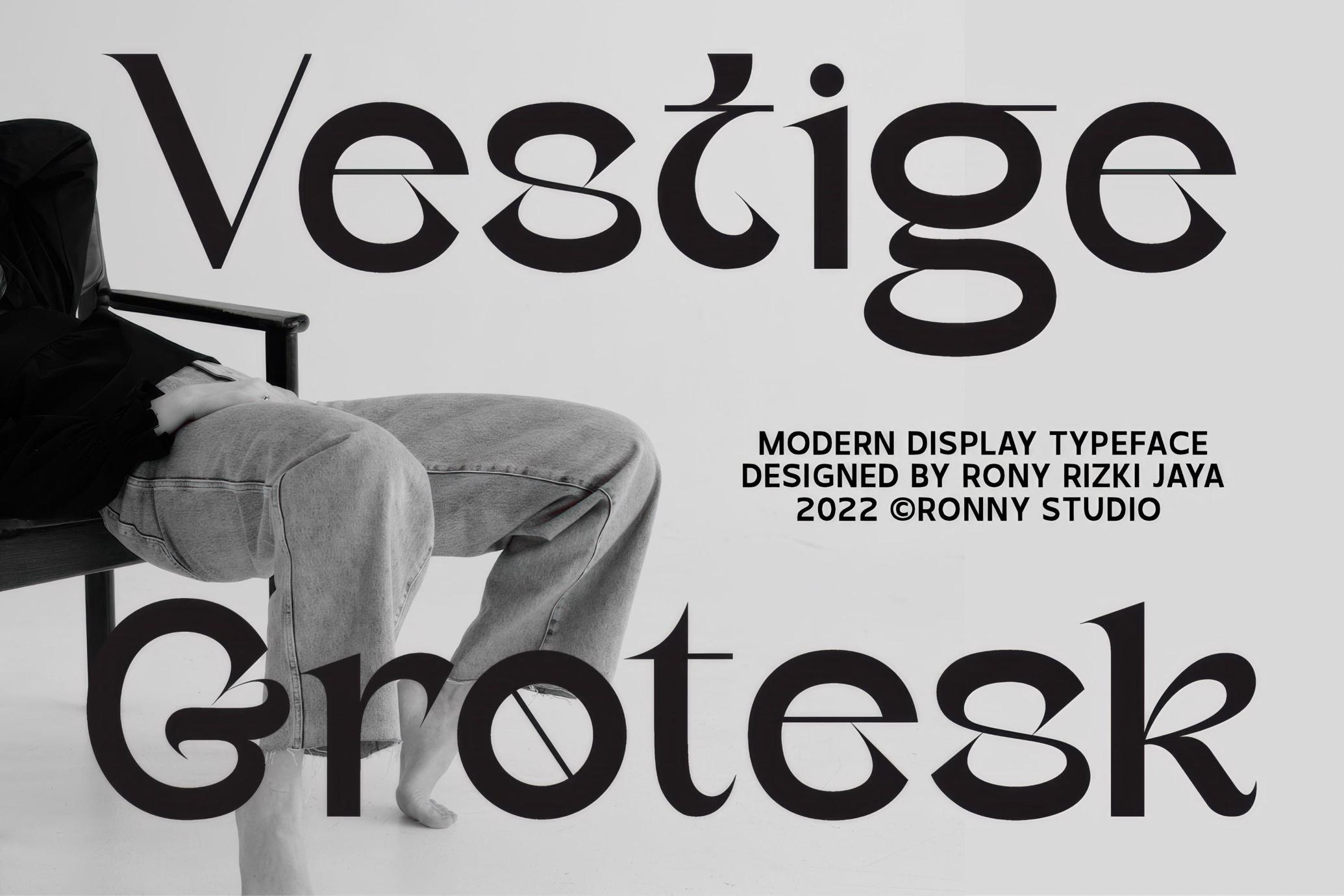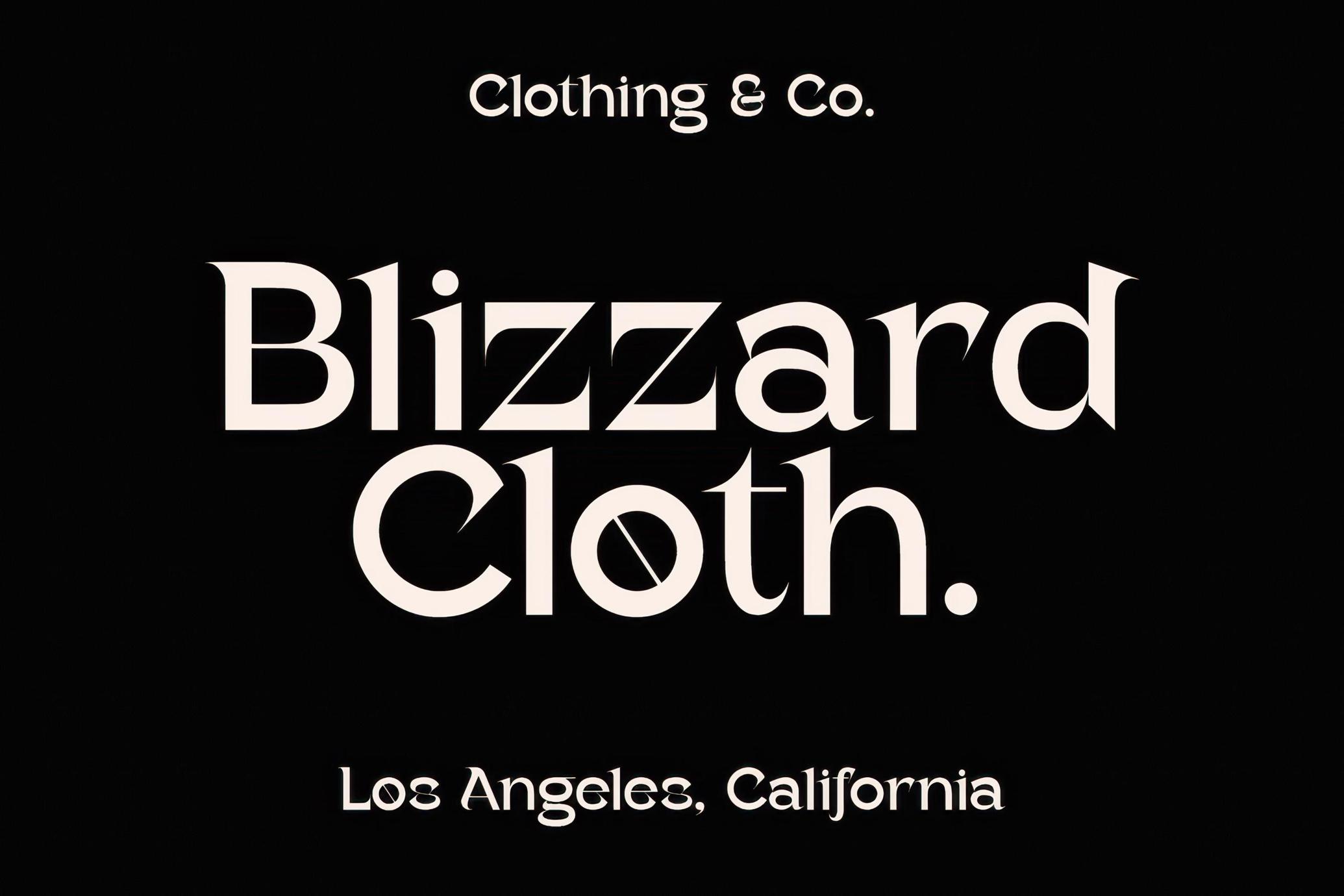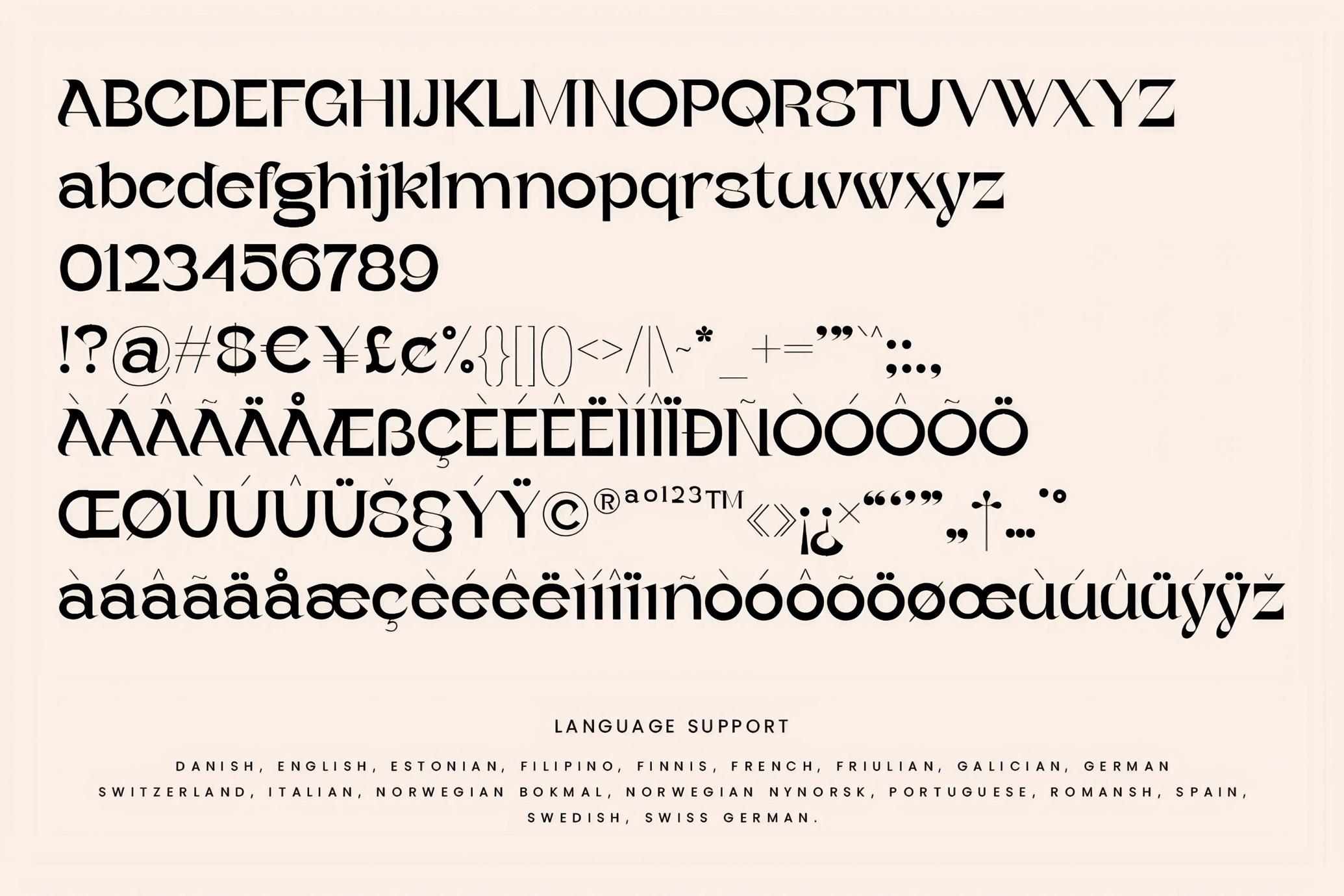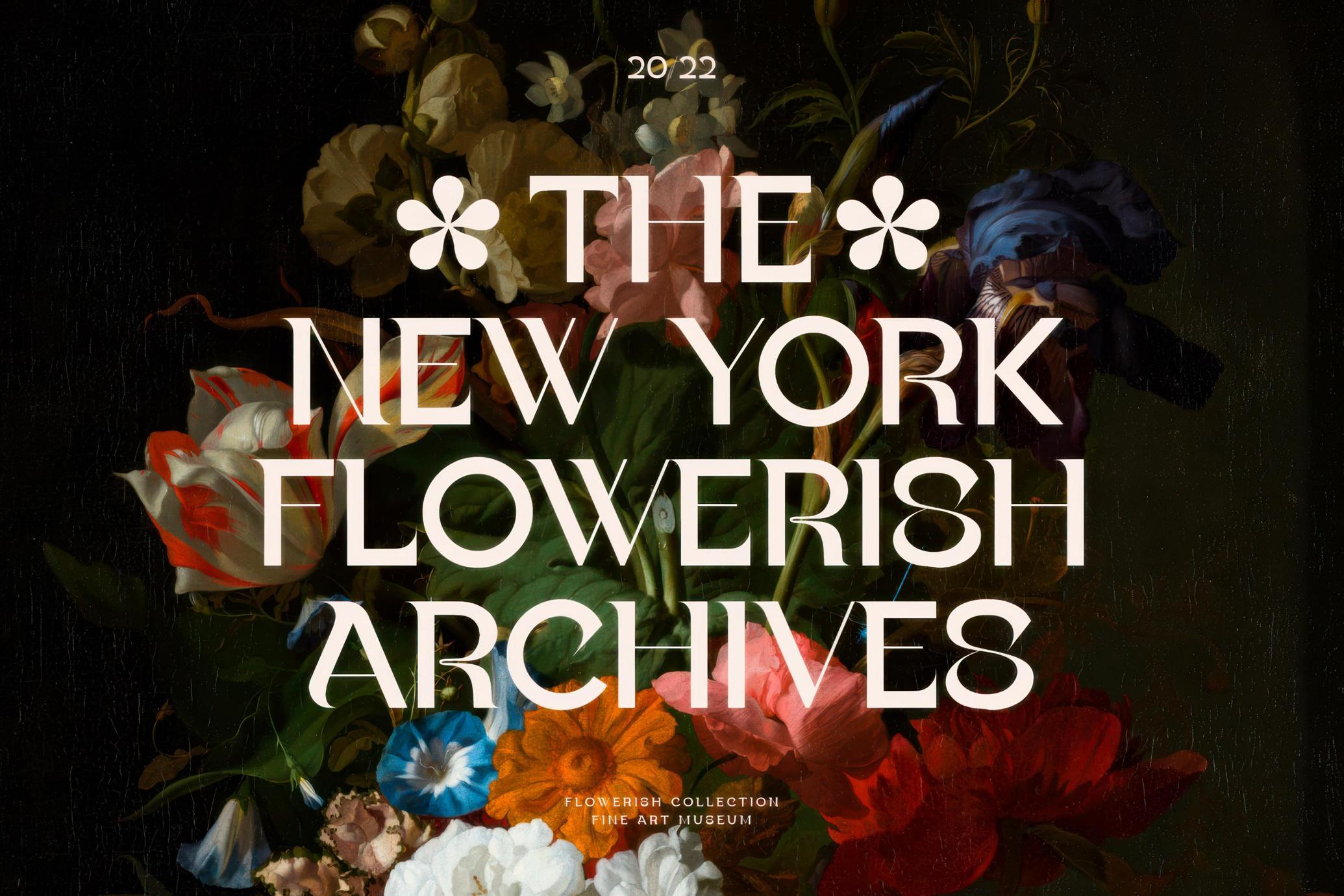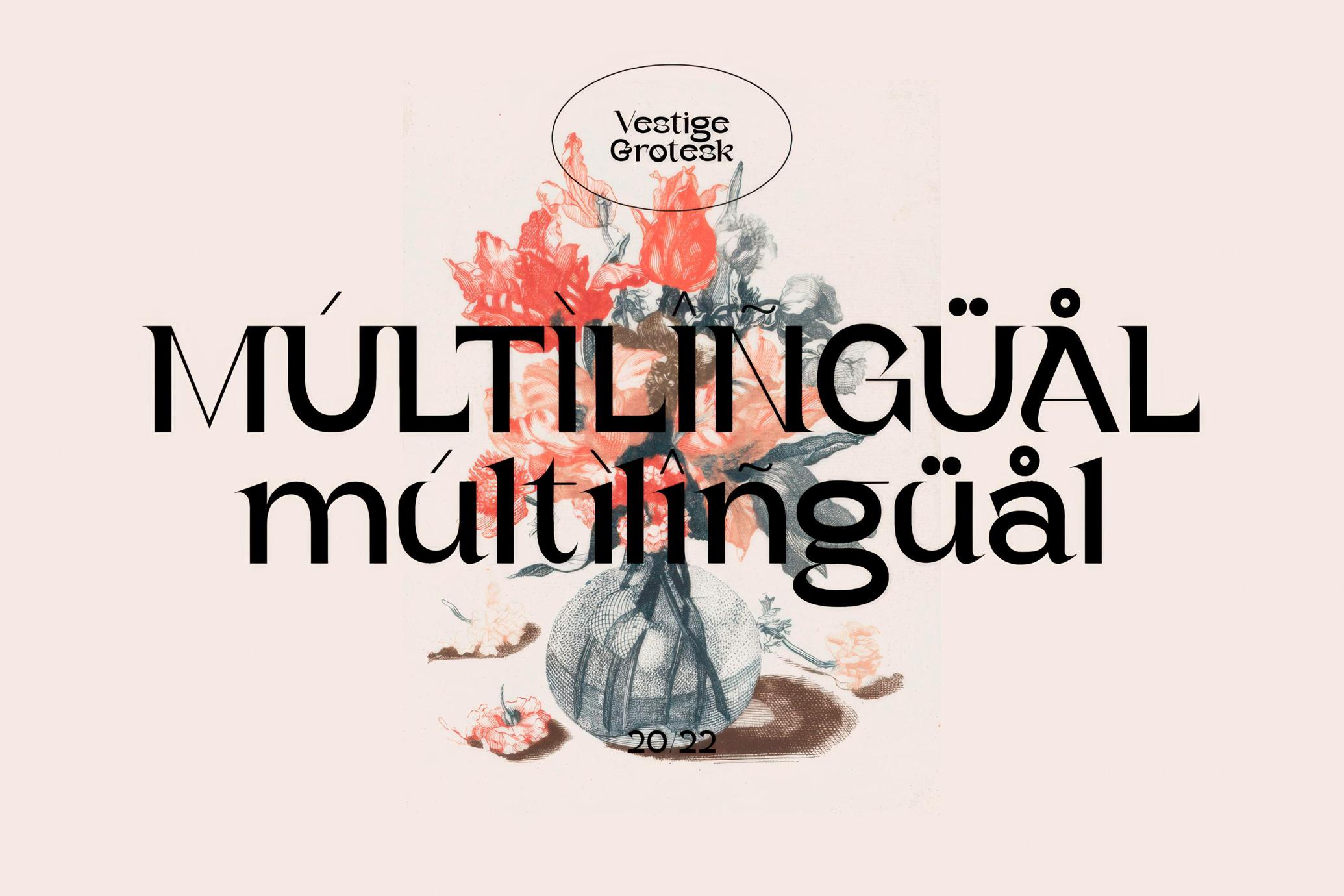
Vestige Grotesk Display
Vestige Grotesk is cool, unsmiling, and absolutely in control — it carries itself like the front row at an underground fashion week. This modern display type takes cues from brutalist layout culture and editorial minimalism, making it a perfect match for fashion zines, avant-garde lookbooks, and conceptual branding that plays with tension and space. Each letterform feels editorial-ready, with just enough edge to disrupt but never distract.
It's got it all: two styles (regular & italic), complete glyph set, ligatures, alternates, and multilingual support. So please go ahead with typesetting for a monochrome streetwear label, designing runway show invitations, or laying out a manifesto on post-industrial aesthetics — Vestige Grotesk has the discipline and flair to back it up.